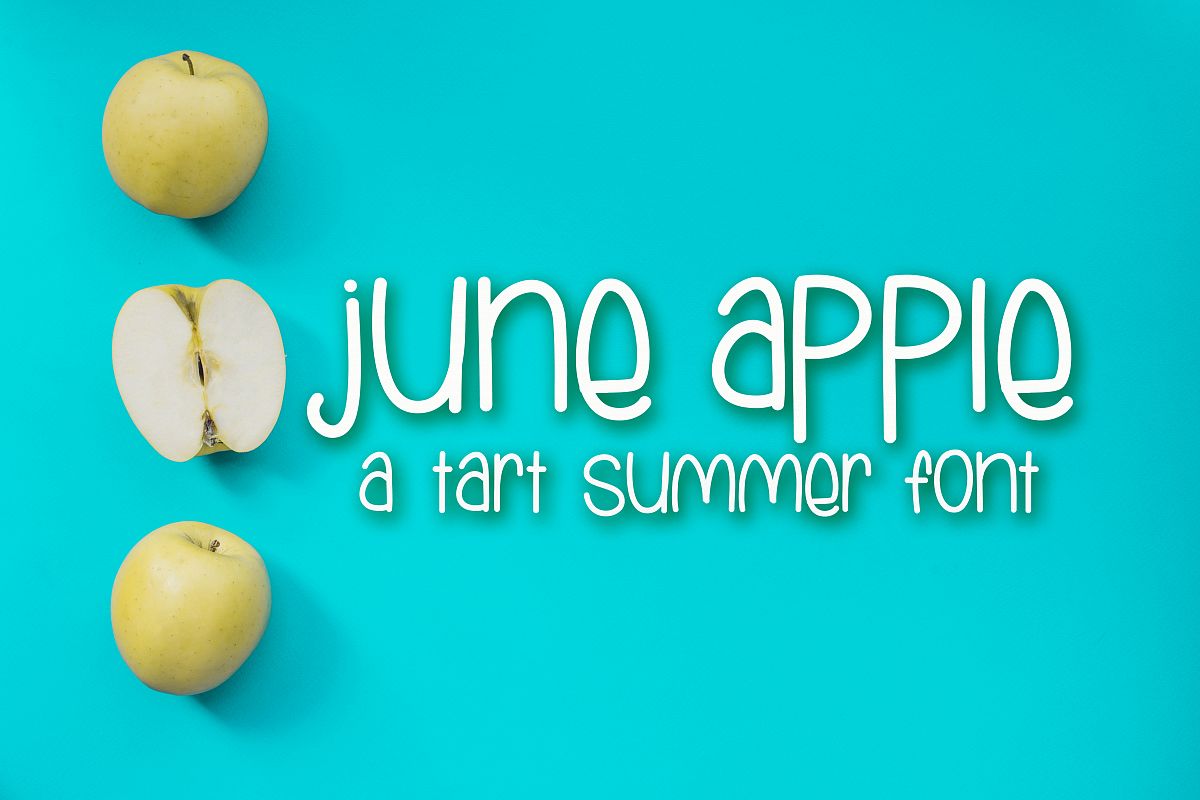
June Apple
A hand drawn font by Scout and Rose Design Co PERFECT for crafting or creating cute apparel for the littles in your life! <3 The possibilities are endless! Use for making your own invitations, greeting cards, or mug designs too!!!
June Apple
By Scout and Rose Design